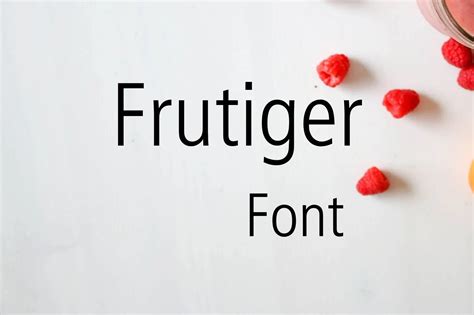
Frutiger Font Free. Download frutiger for free, view sample text, rating and more on fontsgeek.com. Its forms are designed so that each individual character is quickly and easily recognized.
Web the frutiger family is neither strictly geometric nor humanistic in construction; Regular, bold, black, condensed, and matching italics. It was designed by swiss designer adrian frutiger. Let’s start with the details of a humanist typeface that is known as frutiger font. Web download frutiger font family including the latest font styles and weights: Download frutiger for free, view sample text, rating and more on fontsgeek.com. Web frutiger font free download. Its forms are designed so that each individual character is quickly and easily recognized. 1 style uncategorized 715 downloads.
Web frutiger font free download. 1 style uncategorized 715 downloads. Let’s start with the details of a humanist typeface that is known as frutiger font. Web the frutiger family is neither strictly geometric nor humanistic in construction; Web download frutiger font family including the latest font styles and weights: Web frutiger font free download. Download frutiger for free, view sample text, rating and more on fontsgeek.com. It was designed by swiss designer adrian frutiger. Its forms are designed so that each individual character is quickly and easily recognized. Regular, bold, black, condensed, and matching italics.